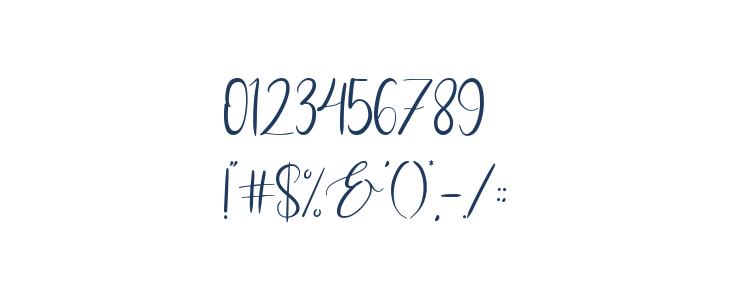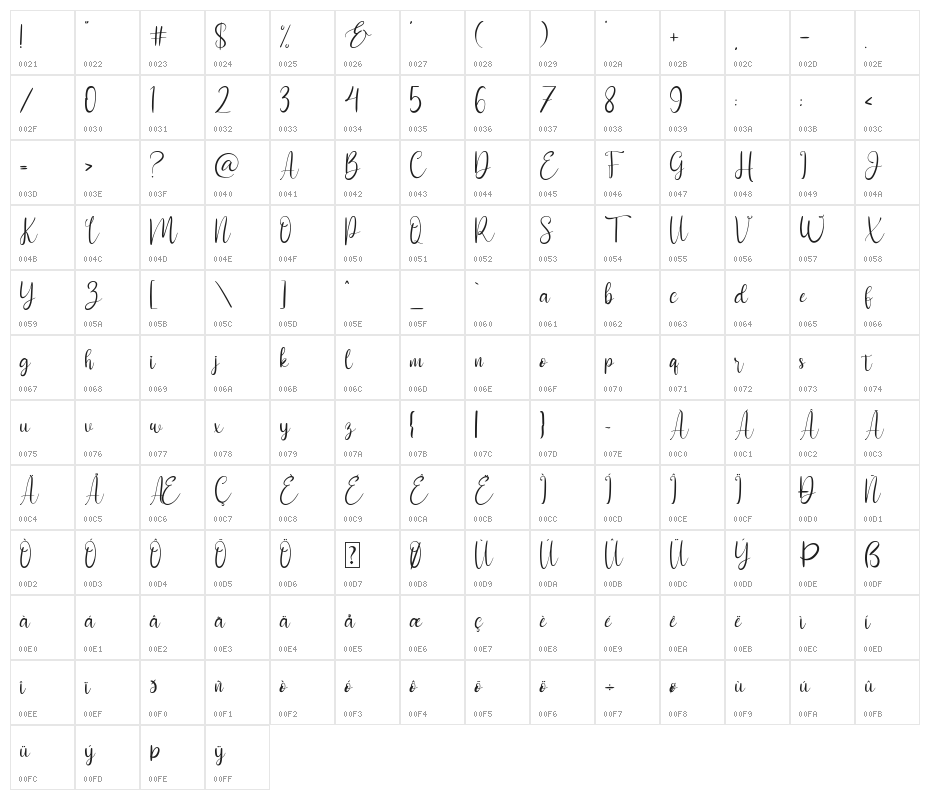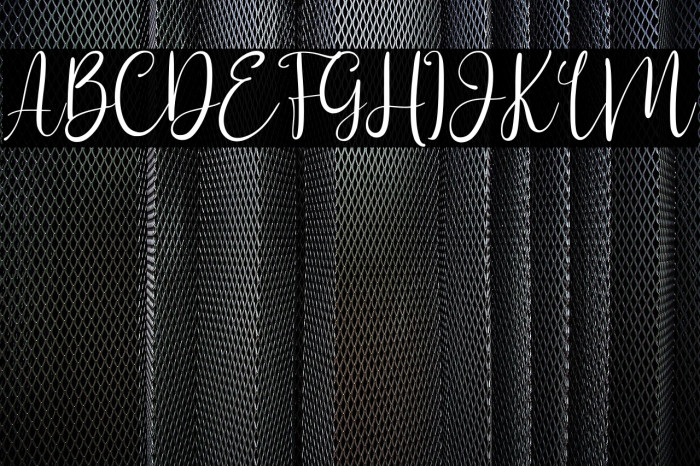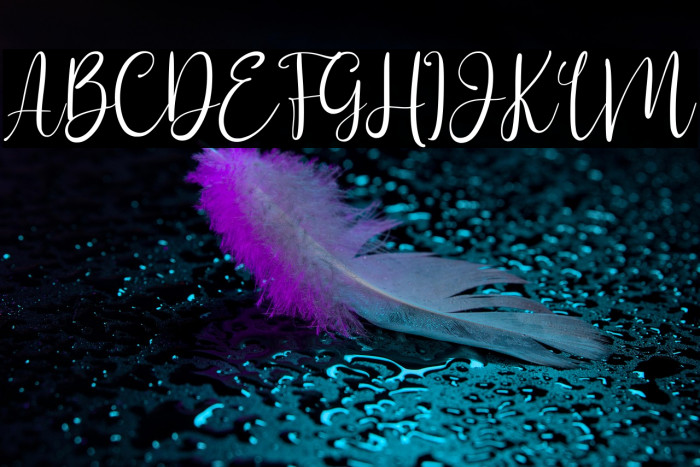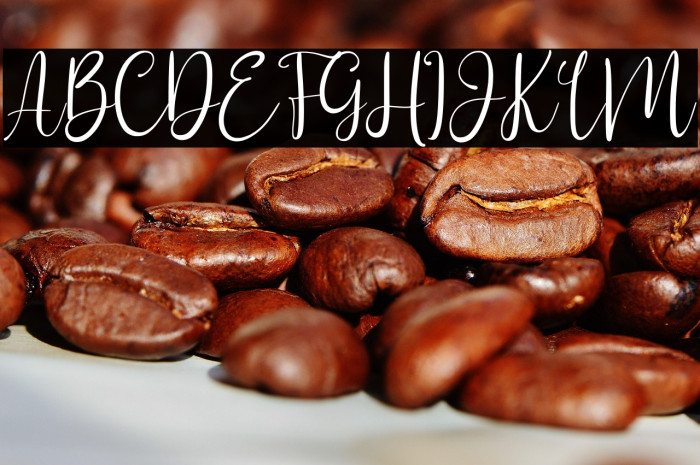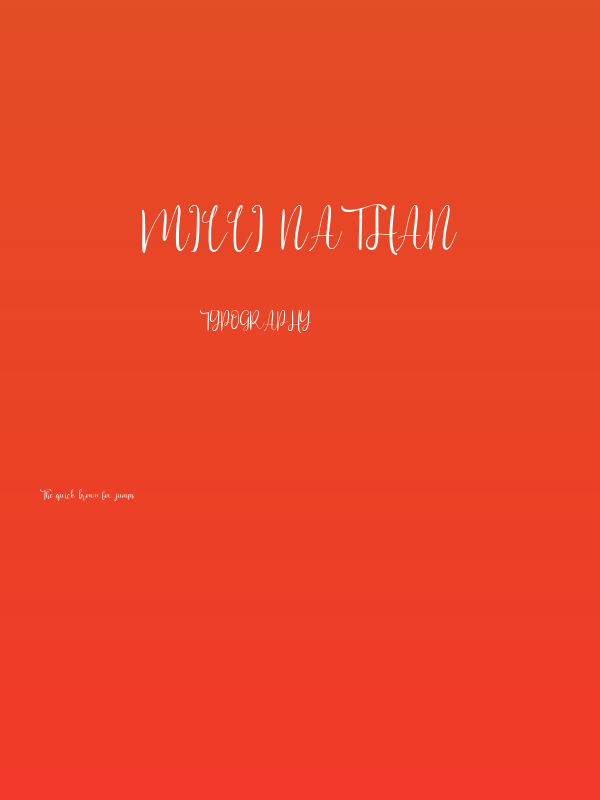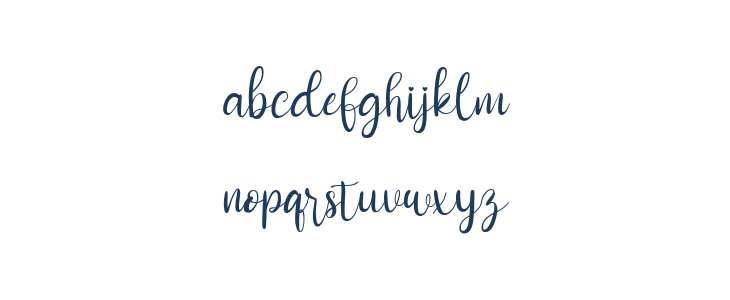
Milli Nathan Font
Milli Nathan Description
This font exudes a playful and elegant charm, characterized by its flowing, cursive style. The uppercase letters are tall and slightly narrow, with graceful loops and swashes that add a sense of movement and fluidity. The lowercase letters maintain a consistent style, with rounded forms and smooth connections between strokes. The numerals are dynamic, featuring a slight slant that complements the overall script aesthetic. Special characters are thoughtfully designed to match the font's whimsical nature, ensuring a cohesive look across all text elements. This font is perfect for projects that require a touch of sophistication and creativity.
| Use Case | Logos, Invitations, Headlines |
| Proposed Projects | Ideal for wedding invitations, greeting cards, branding, and social media graphics. |